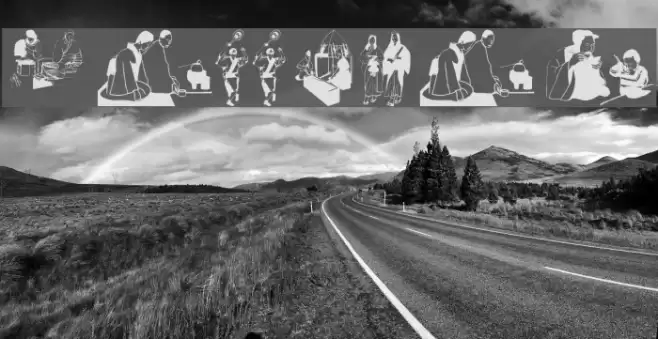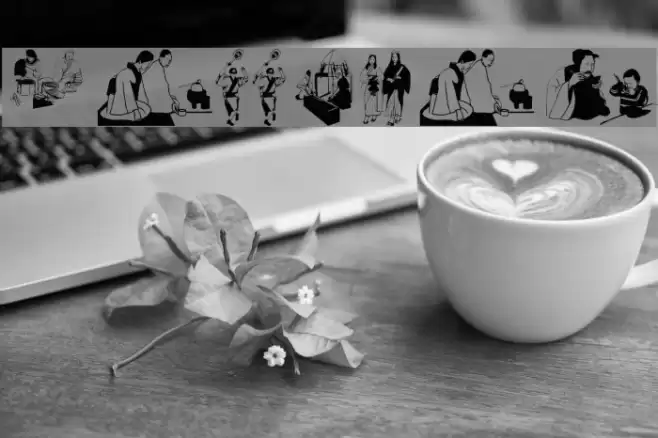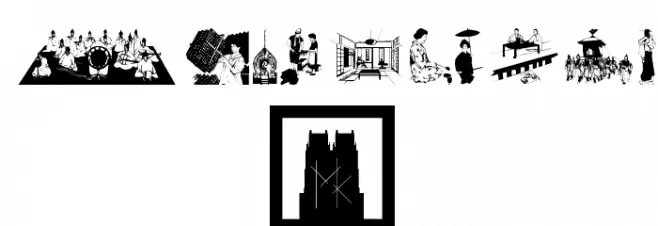
Nipponia Font
Nipponia Description
A decorative display font composed of detailed black-and-white illustrations depicting traditional Japanese scenes, people, and cultural elements, with each character represented by a unique pictorial vignette rather than standard letterforms.
Illustrative font using Japanese cultural scenes for each character from Uncategorized fonts.
- Proposed Projects: Posters, book covers, cultural event branding, educational materials, themed invitations.
- Overall Style: Decorative, Cultural, Illustrative
- Use Case: Logos, Headlines, Themed graphics, Artistic projects